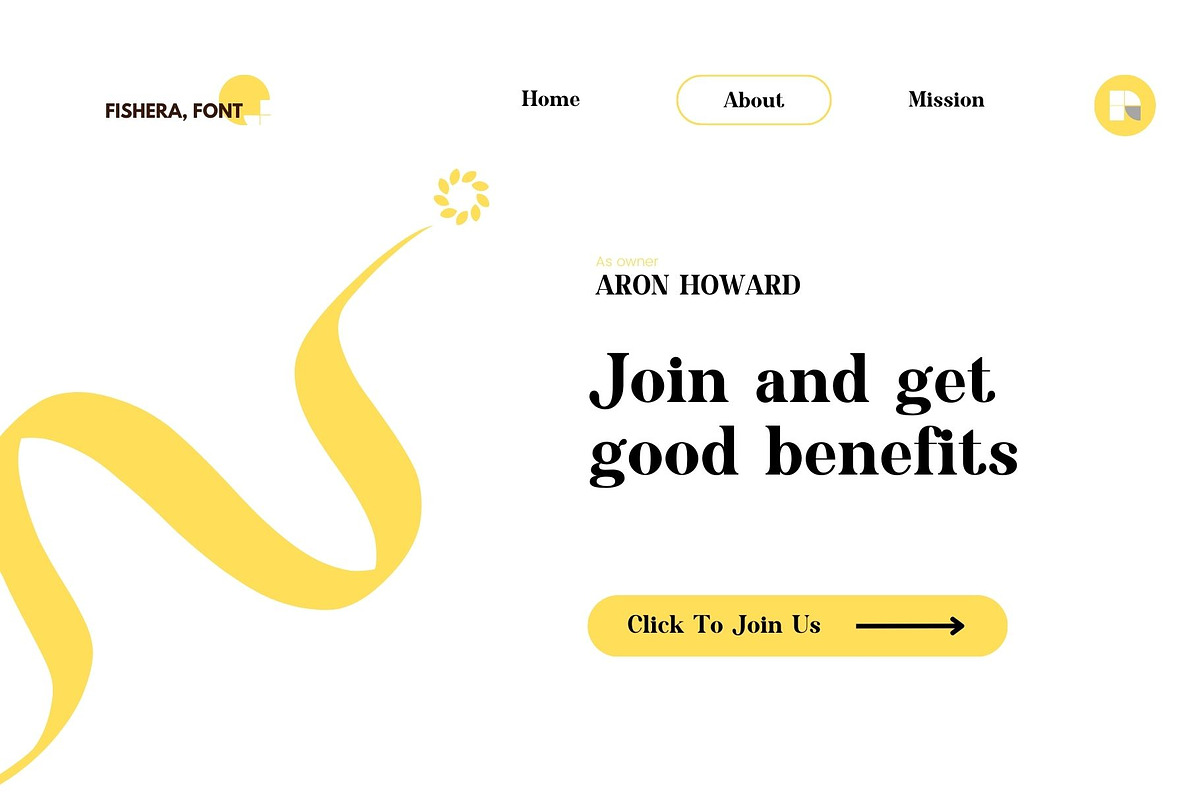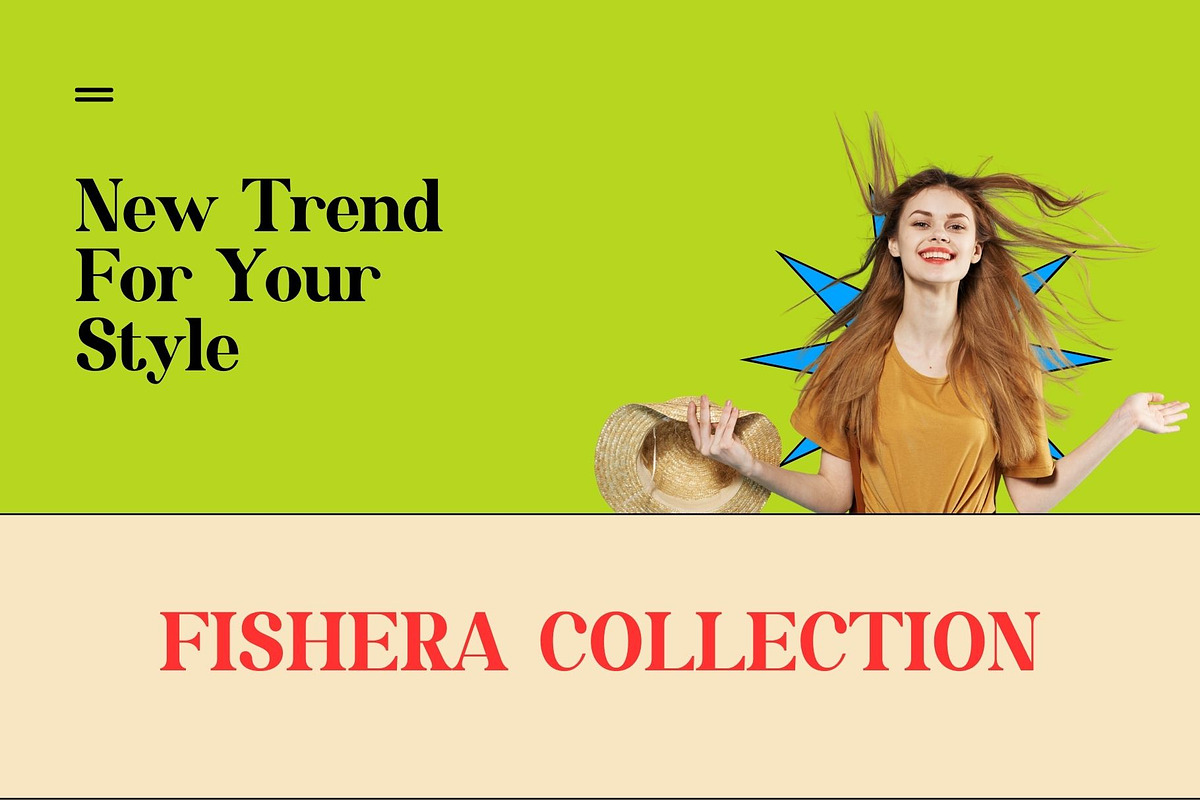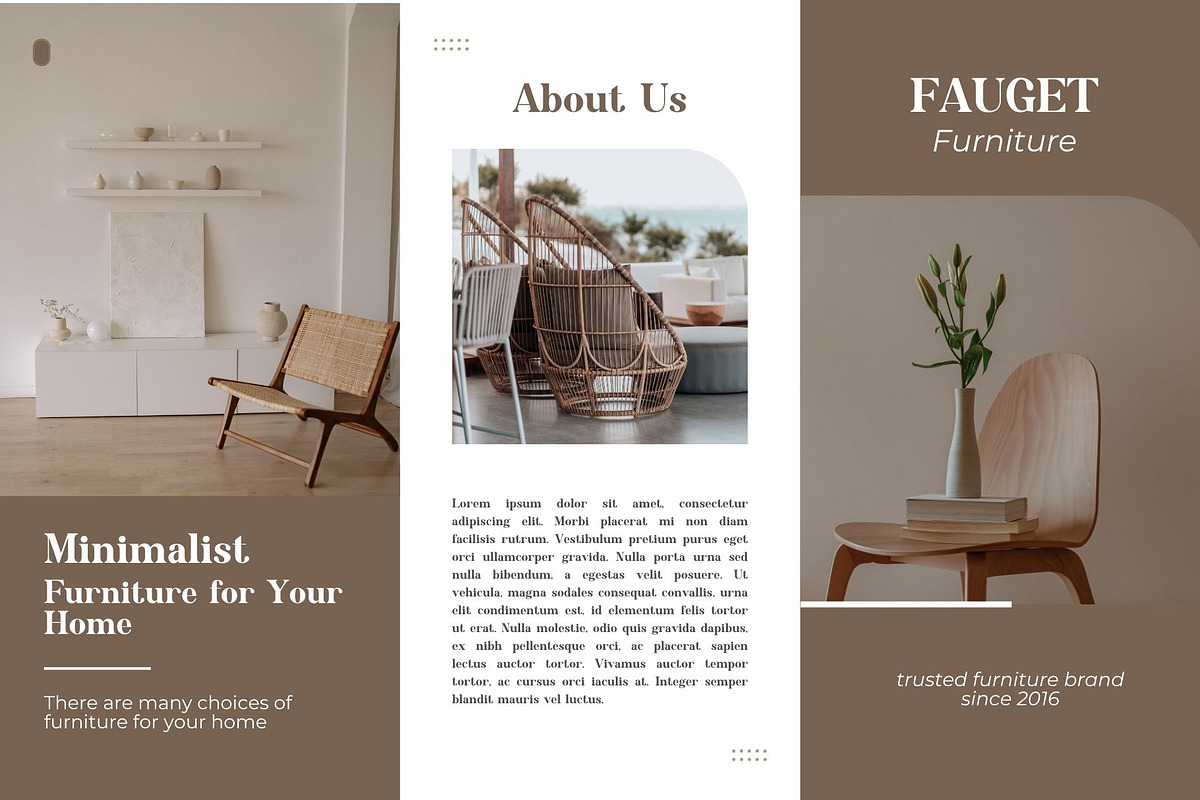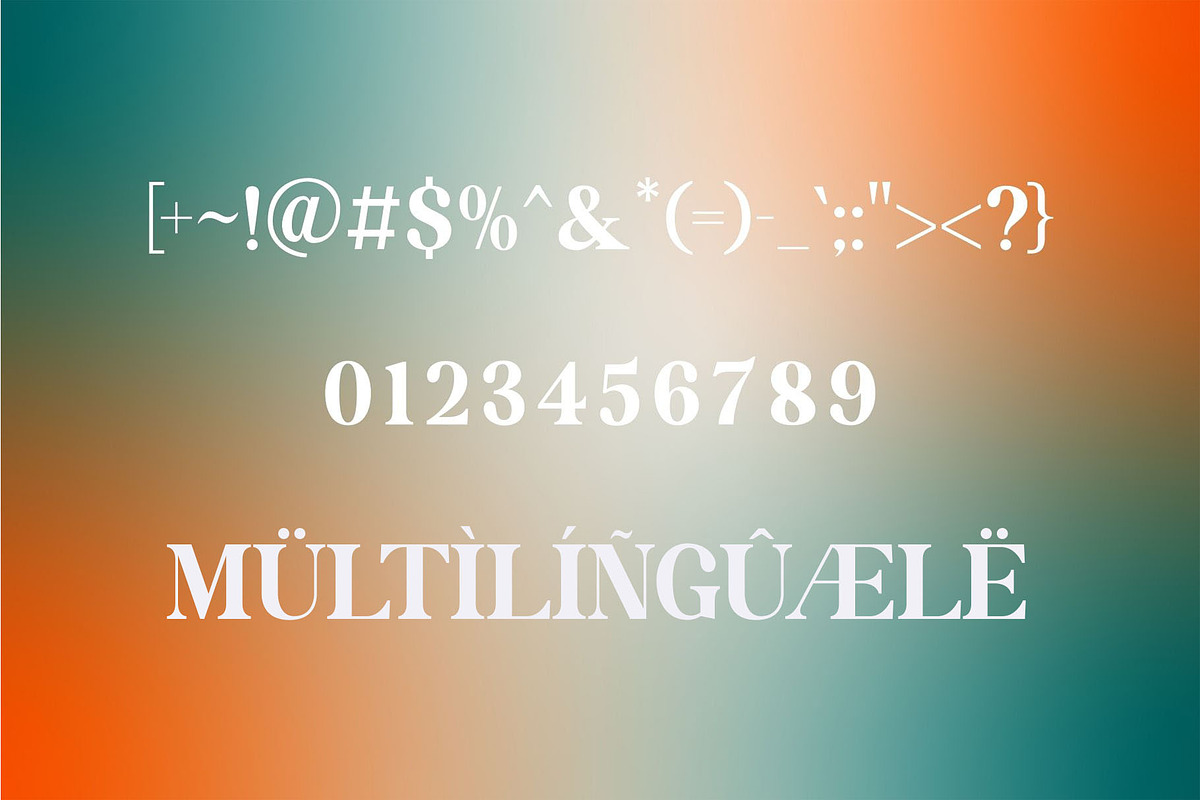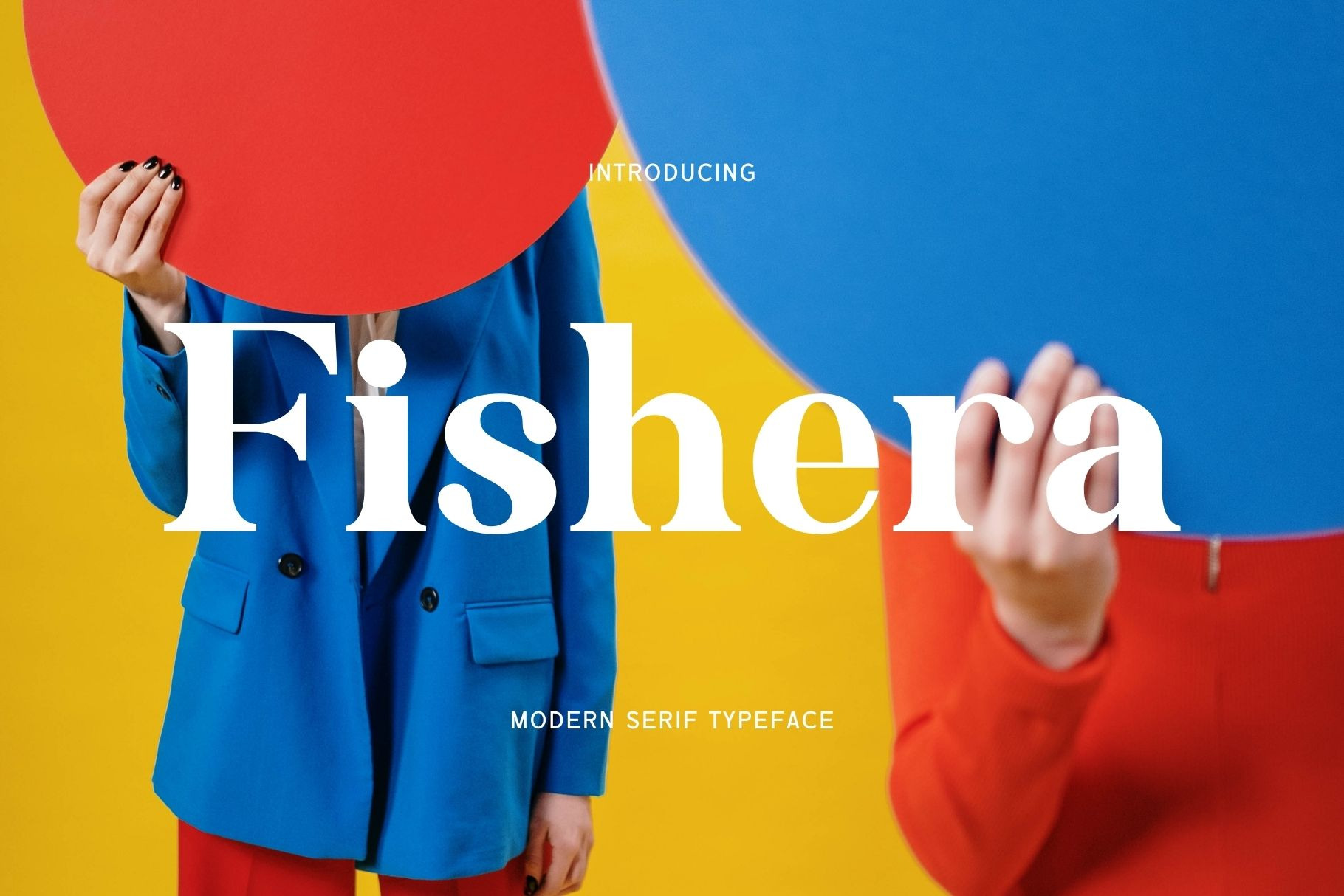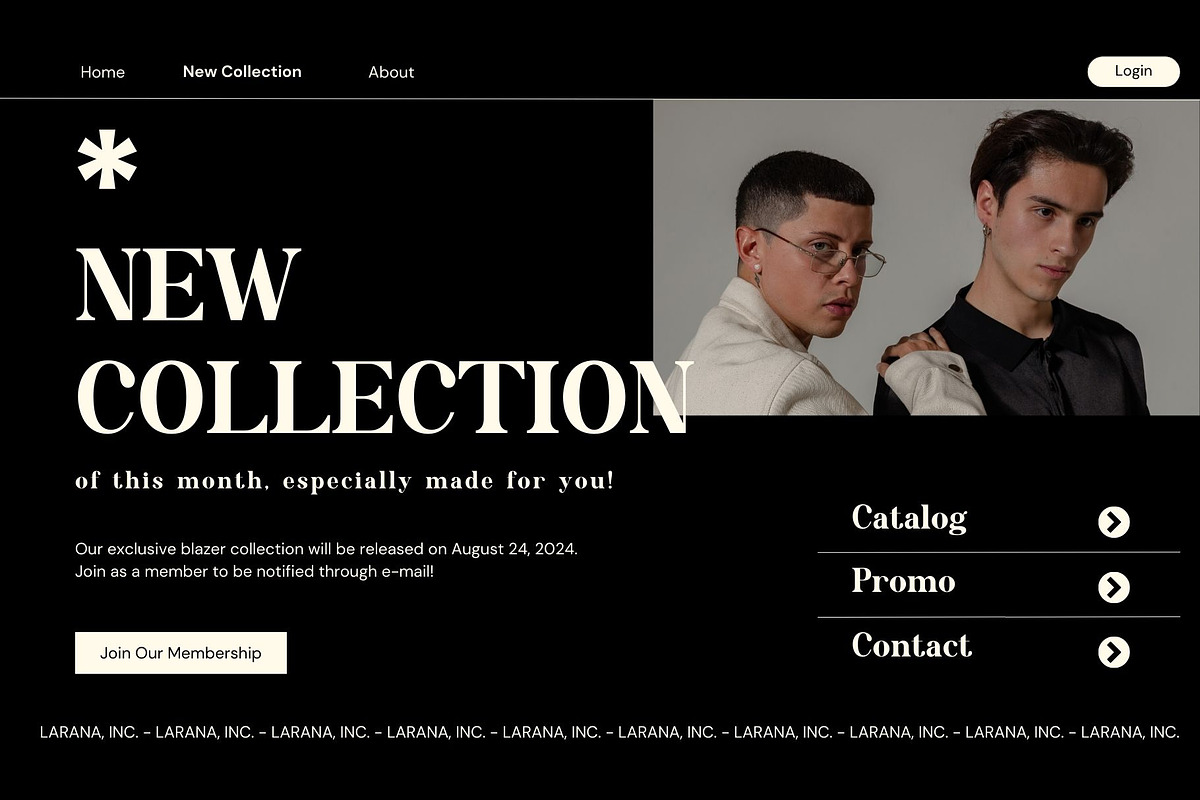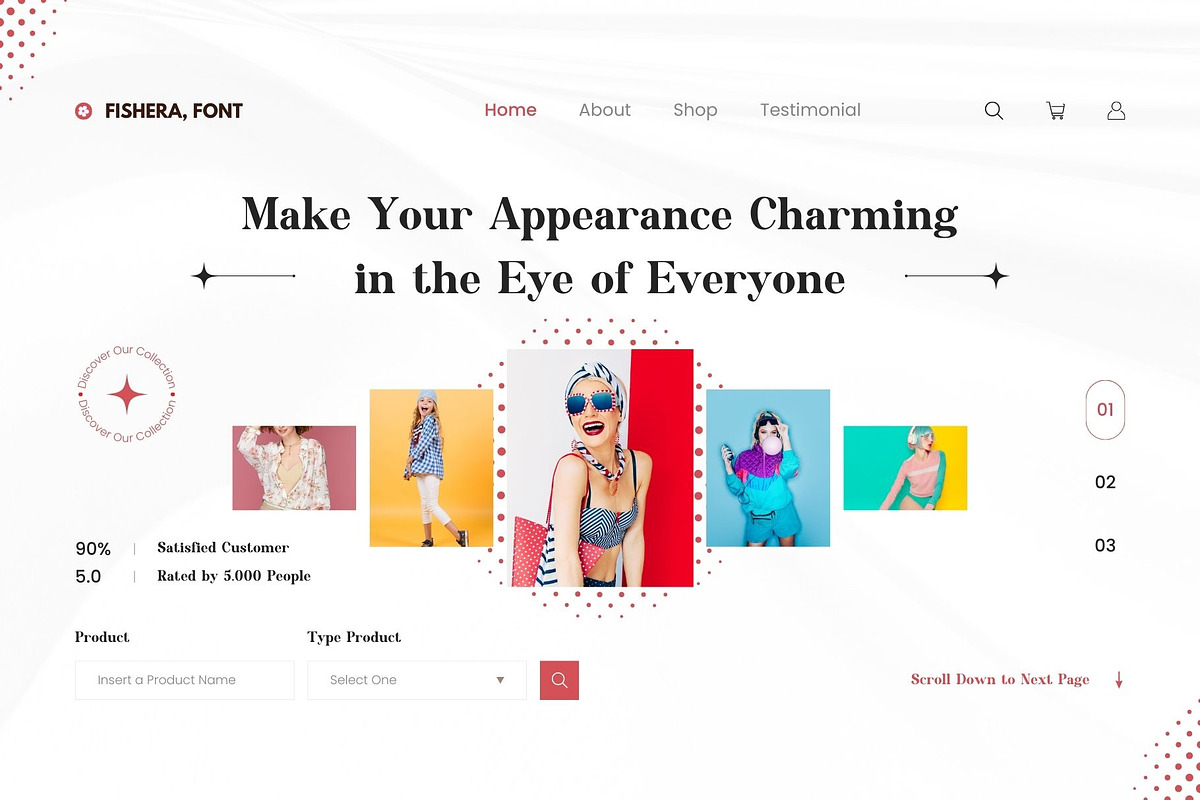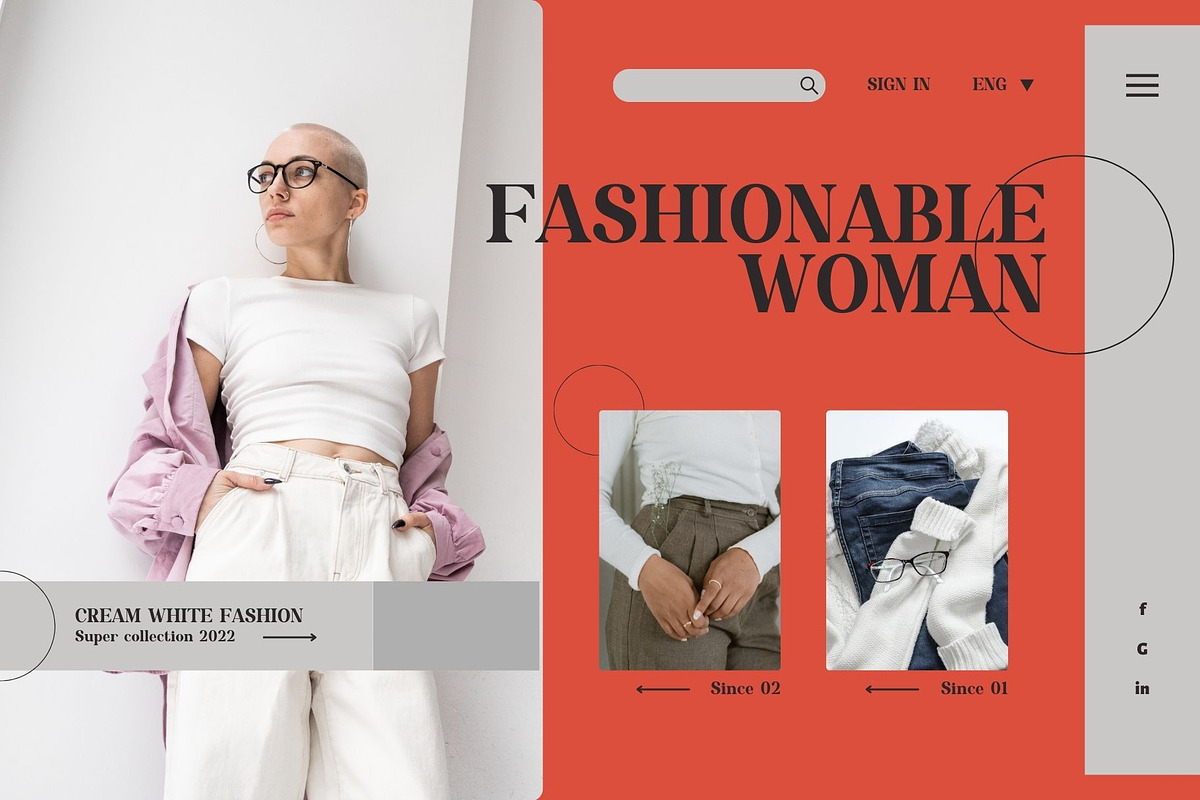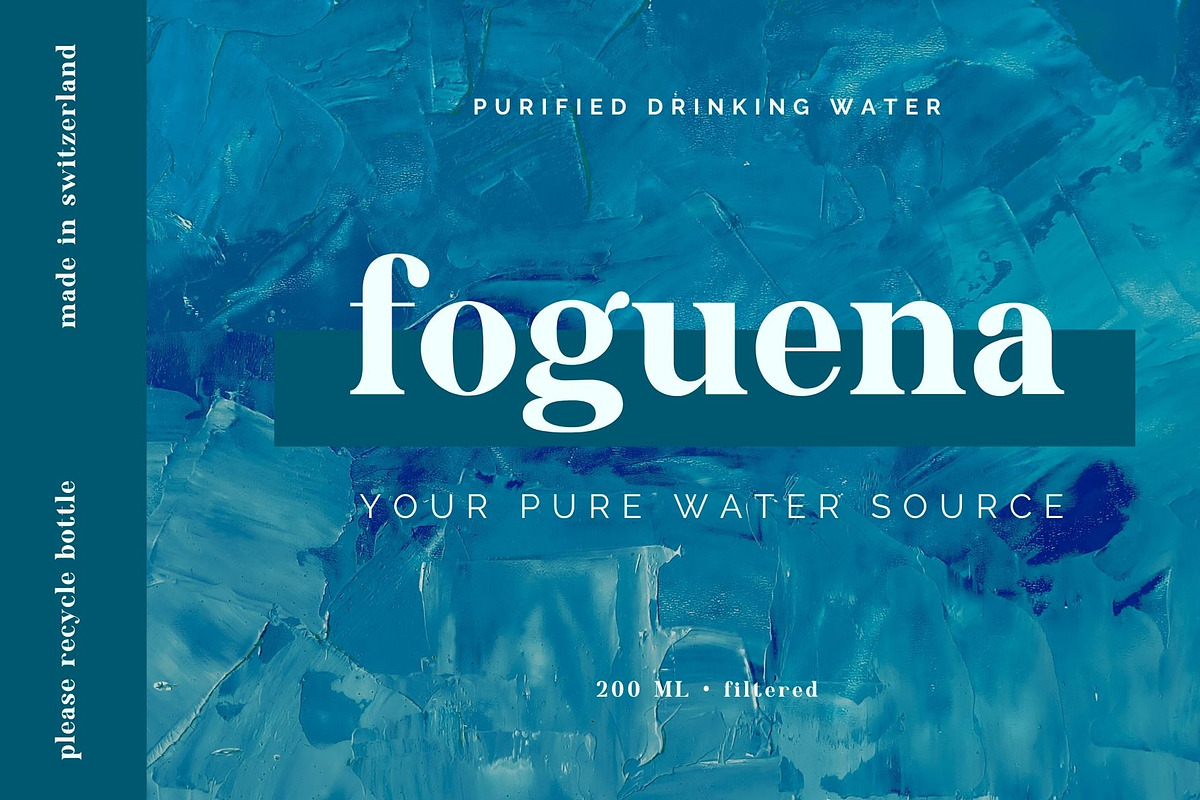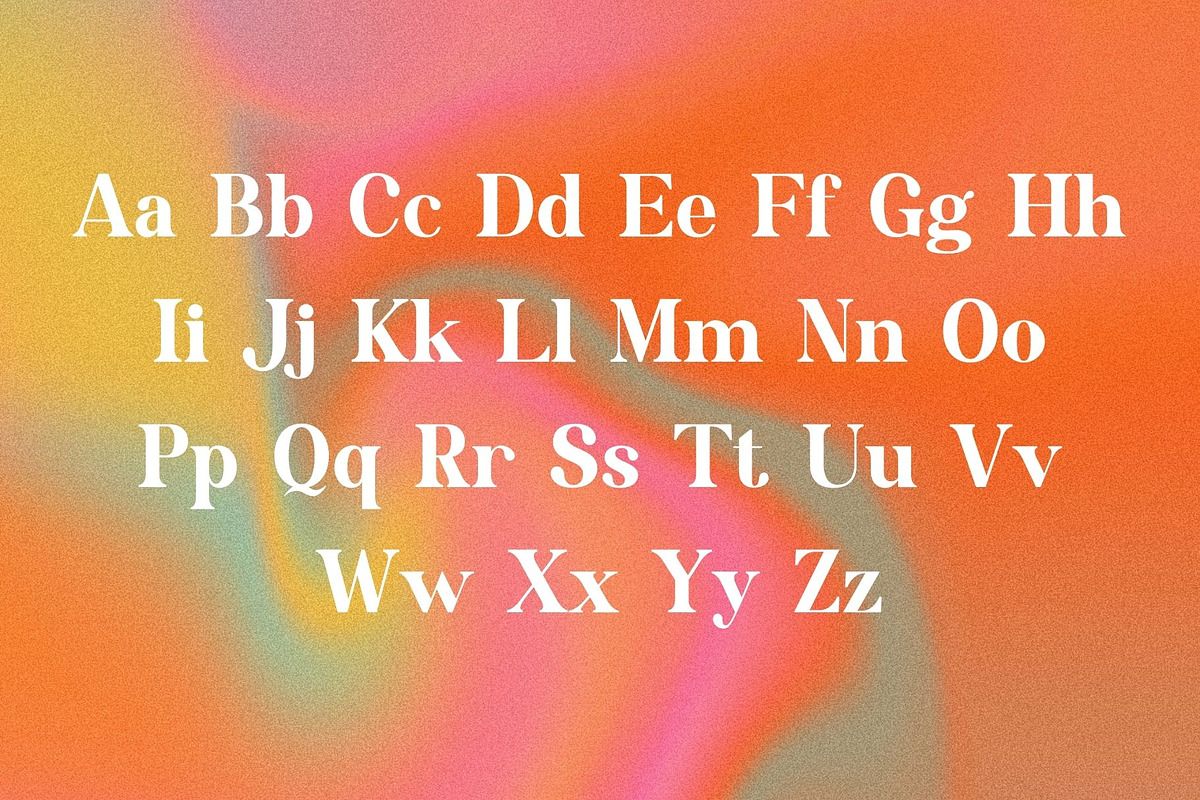
Fishera - Modern Serif Typeface
Introducing 'Feshira' Font:
An exquisite font series designed to elevate your creative projects. Immerse yourself in the allure of meticulously crafted letters that strike the perfect balance between modernity and elegance. Our commitment to precision shines through in the creation of each letter, prioritizing immaculate design to guarantee a flawless typographic expression.
Ideal for:
- Modern Designs
- Beauty and Fashion
- Advertising Campaigns
- Social Media Designs
- Luxury Fashion
- Ready for Creative Expression
- Immaculately Crafted Letters